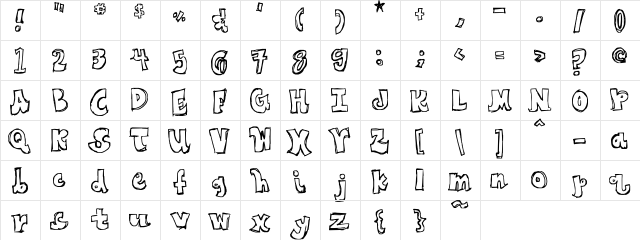
If I Had One Wish Regular
Design Context for If I Had One Wish Typeface
If I Had One Wish is a composed and adaptable typeface that performs quietly and consistently across a wide range of design contexts.